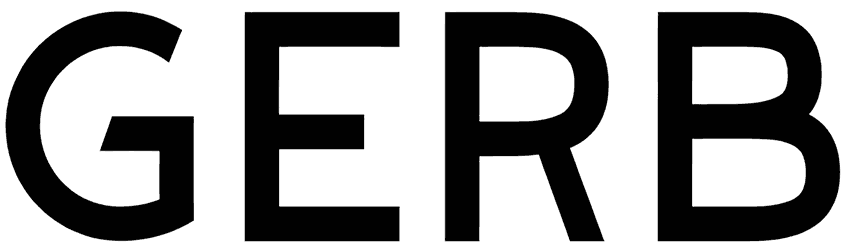
Gerb Font
If you need a humble outward for your words to make them bold and impressive, don’t miss this sans-serif font. Gerb has a modest, large style that can be used for any design with any title. It doesn’t cover lowercase letters and most punctuation, but with two weights, you can set it for many designs from logos to apparel, and create varied mixes.
It comes in Regular and Bold!